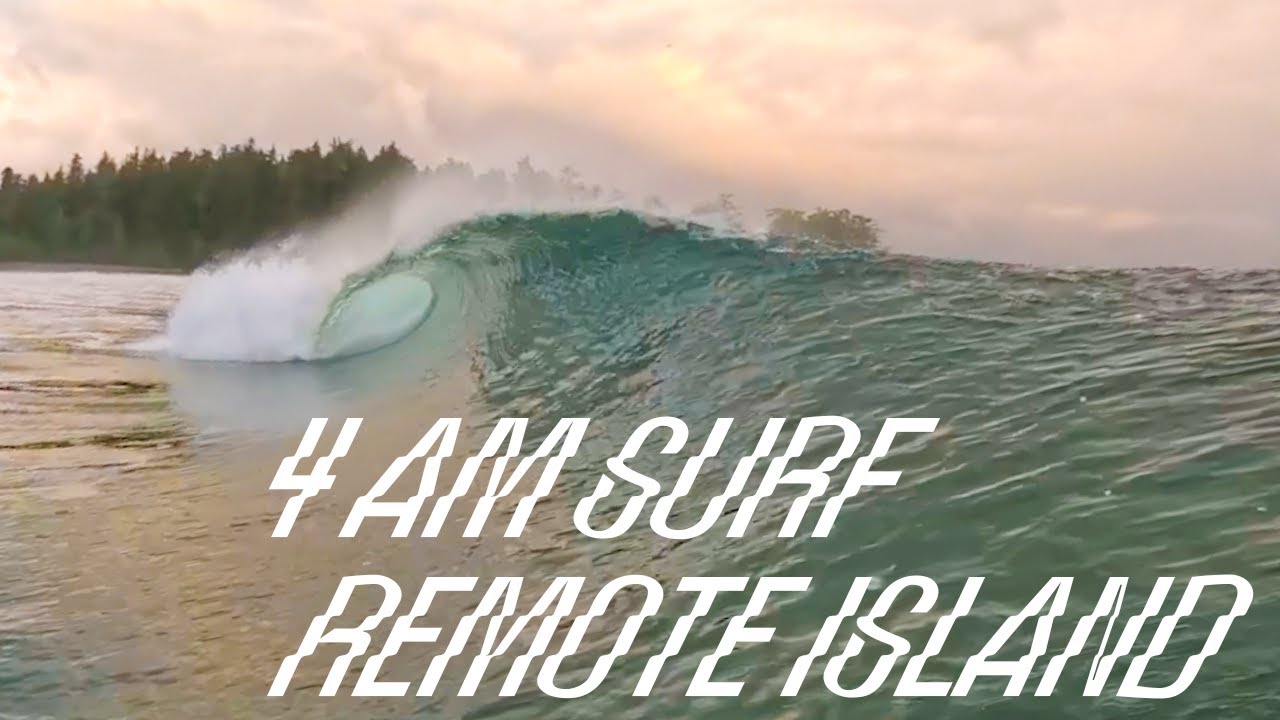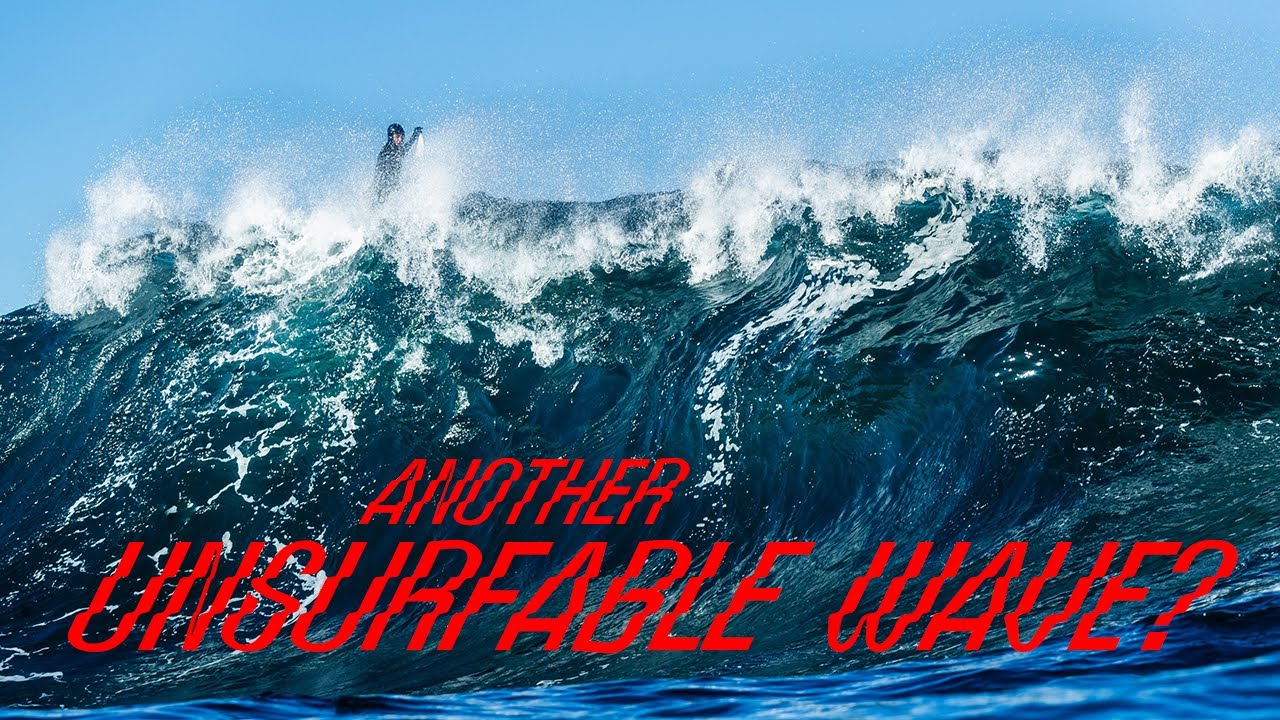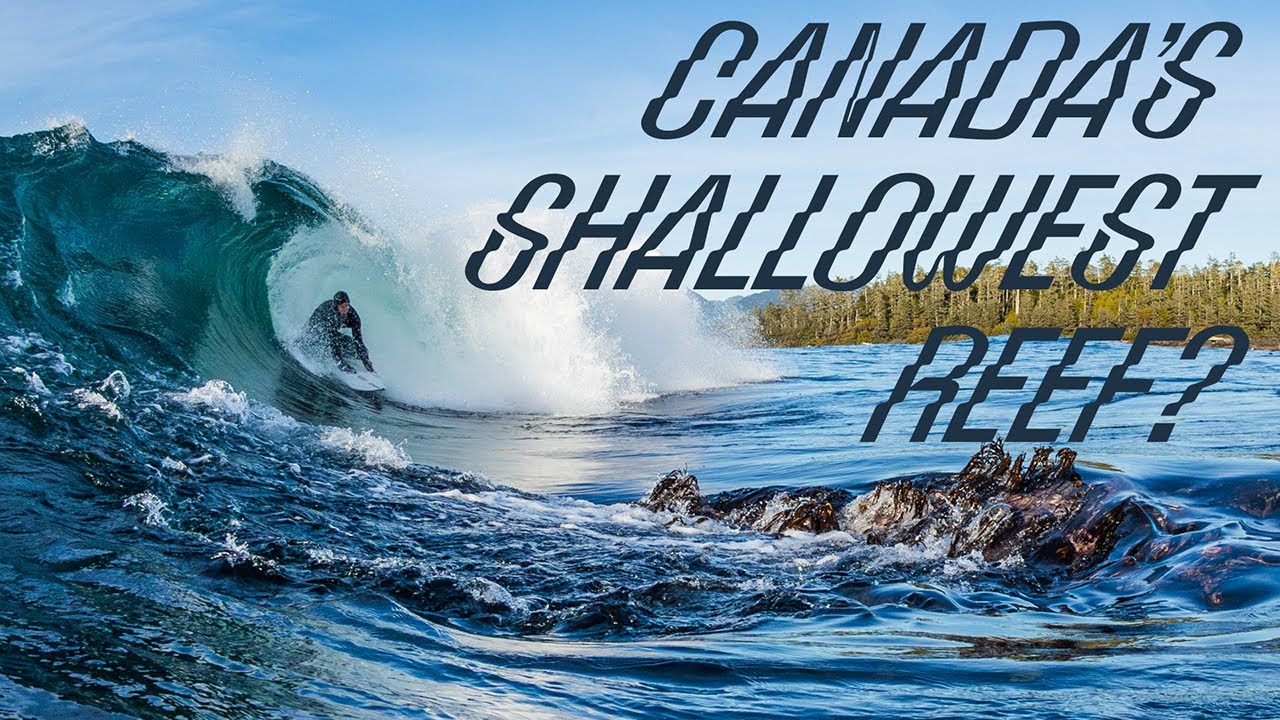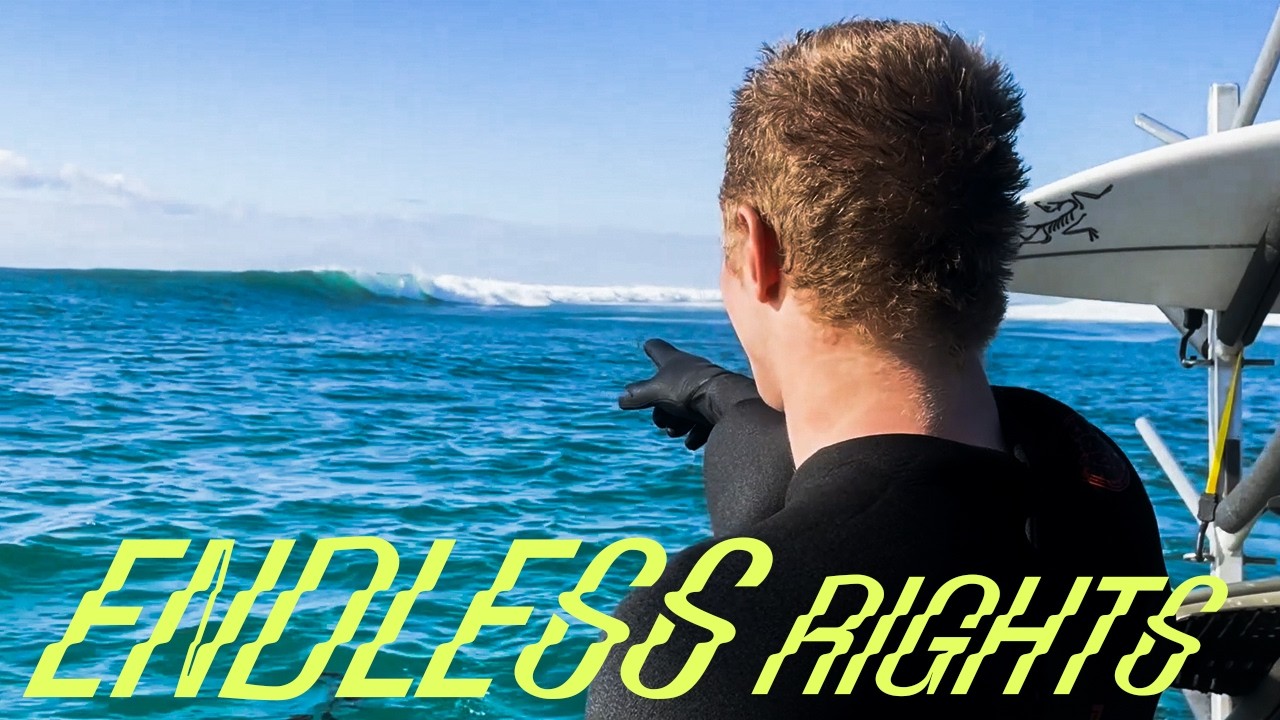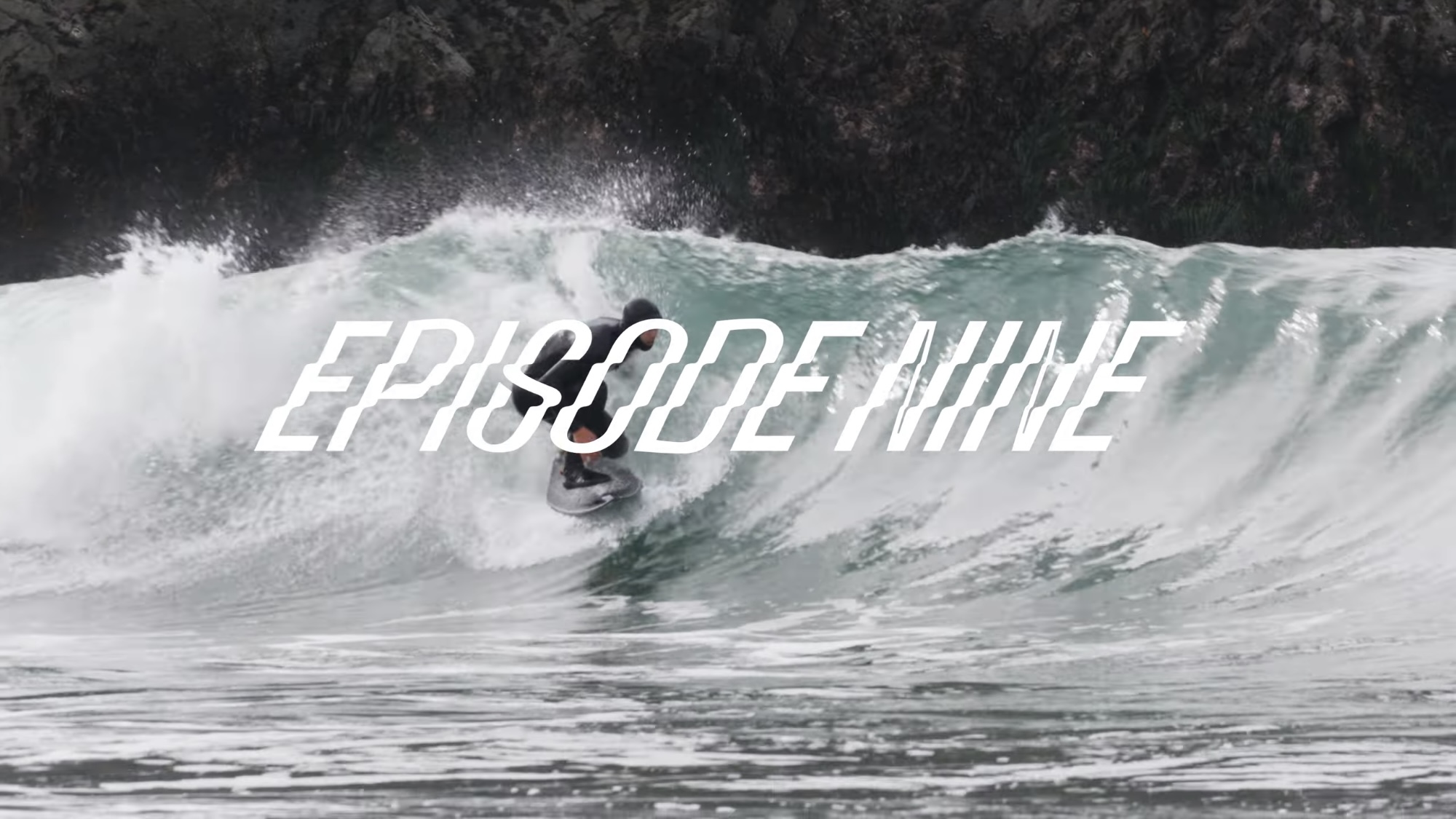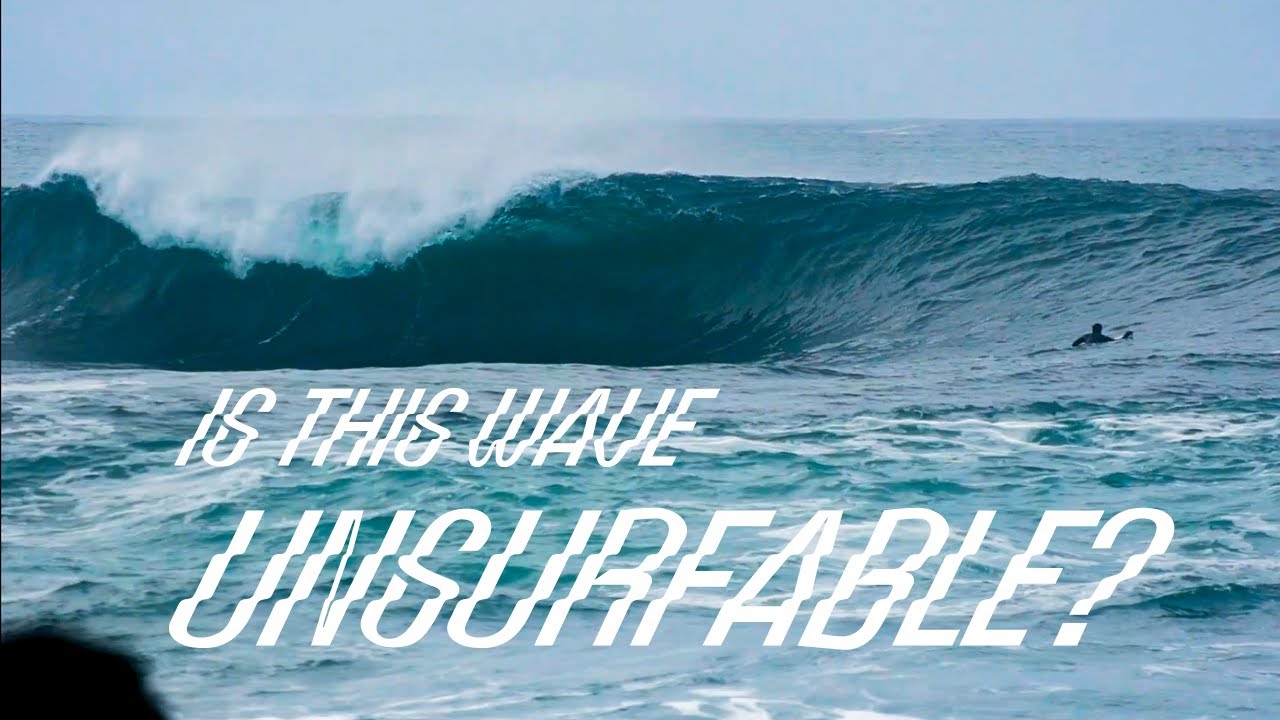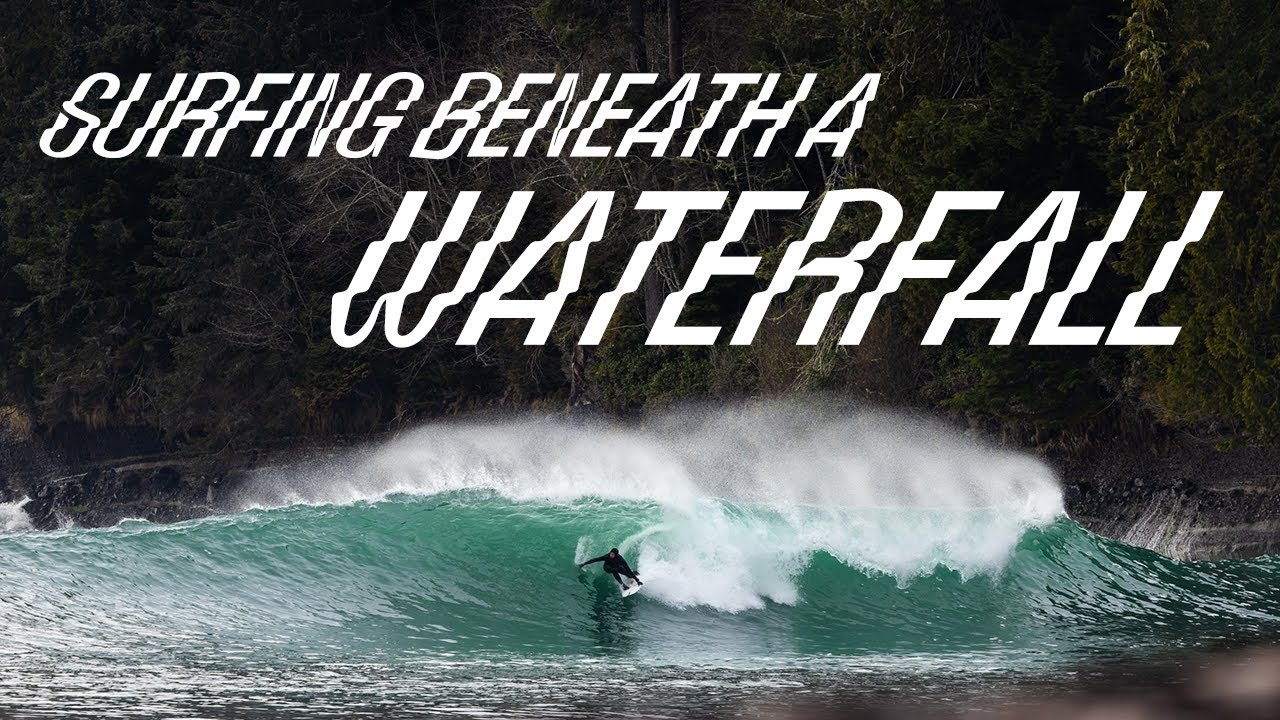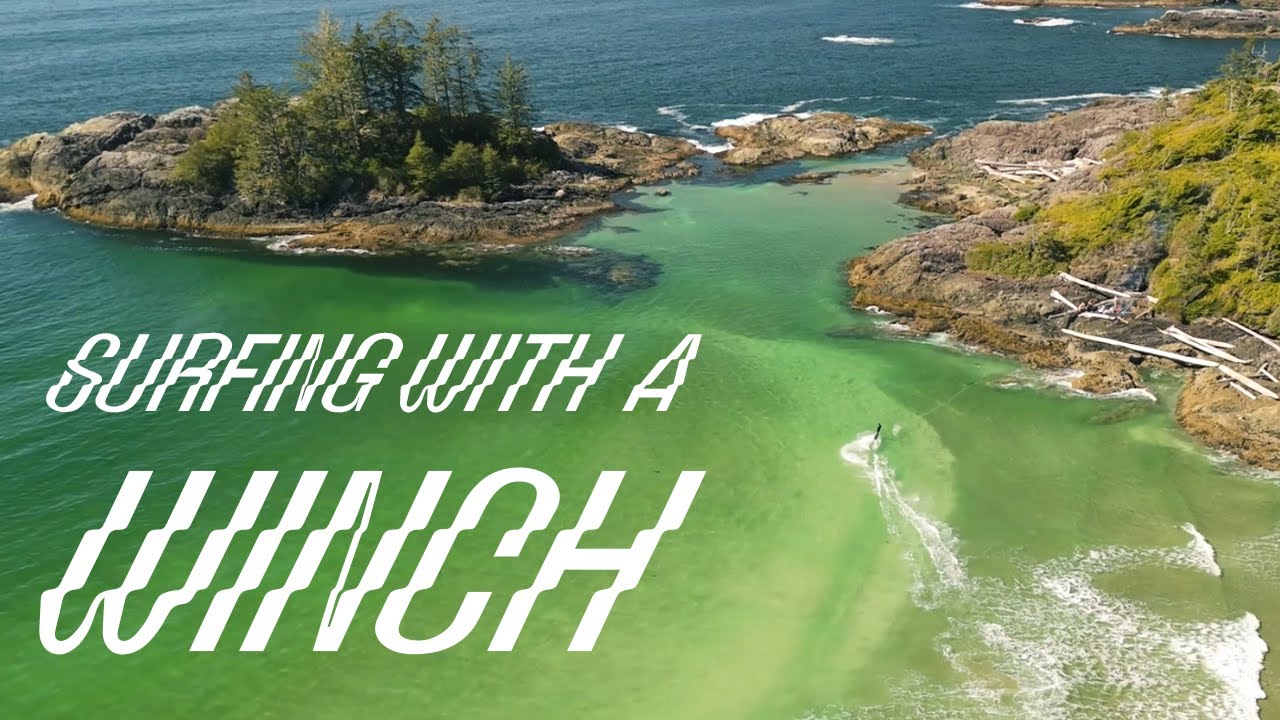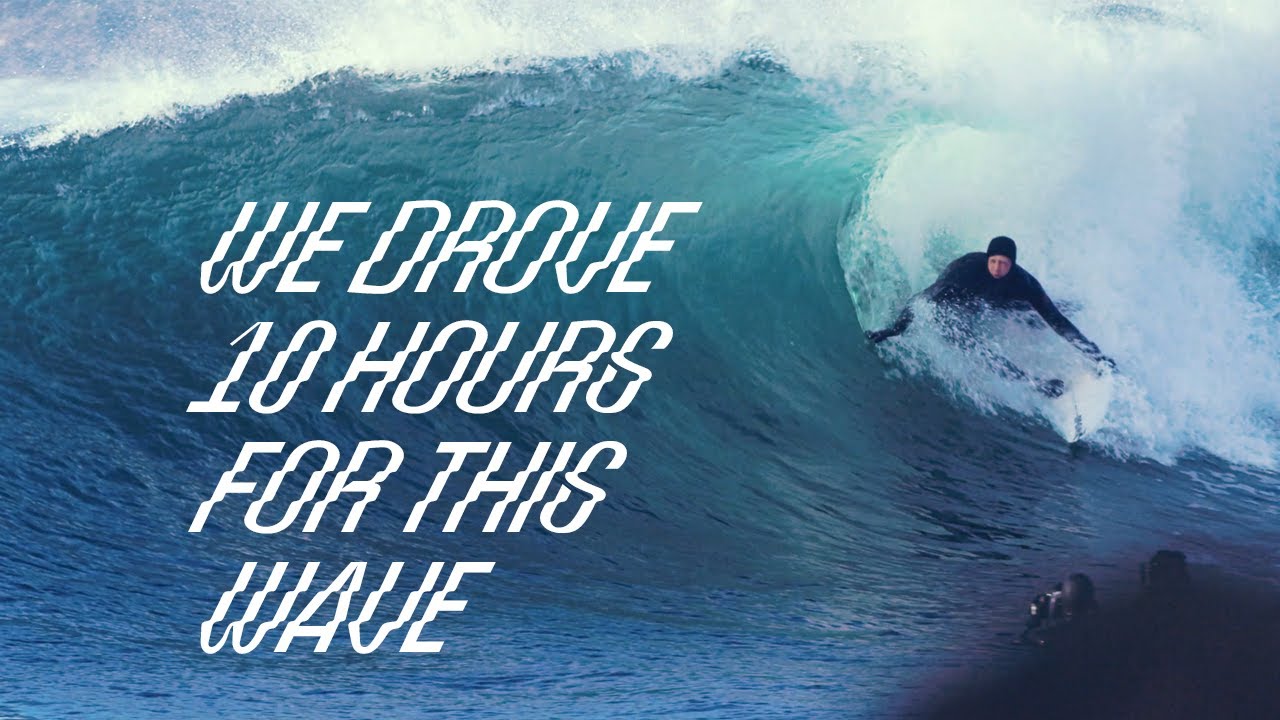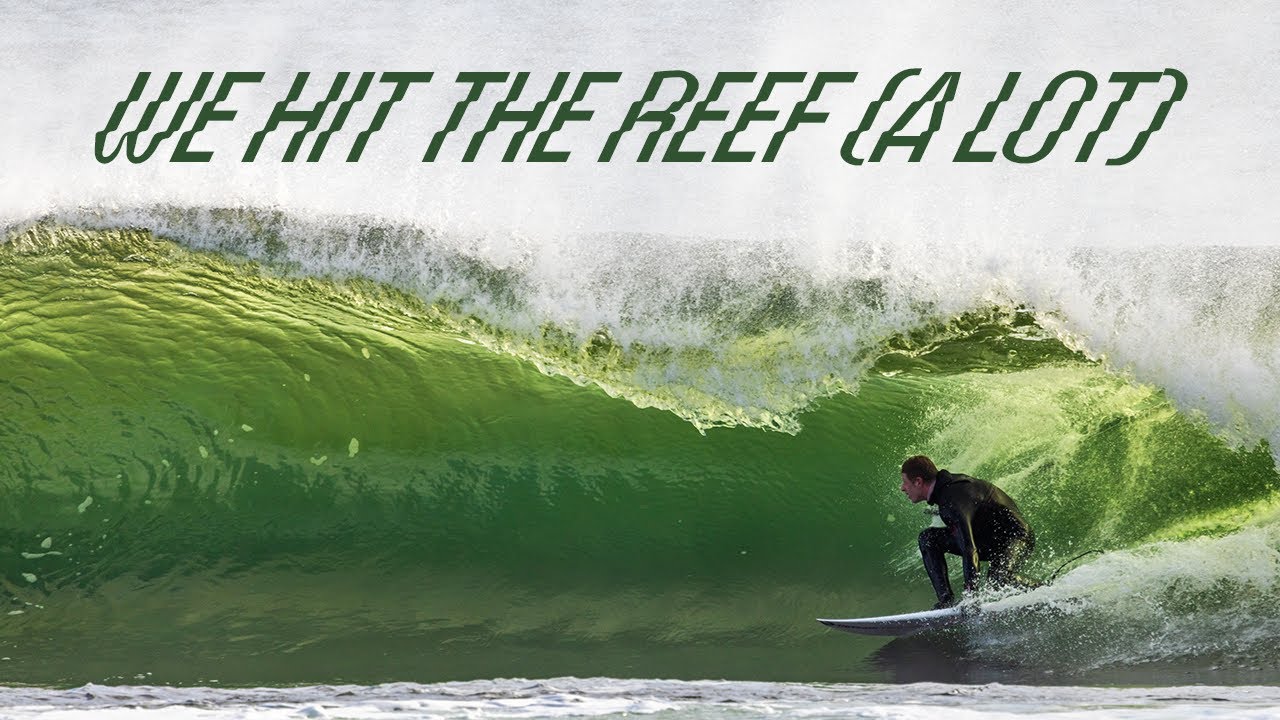
Reed Platenius surf video titles
by Reed Platenius
“We drove 10 hours for this wave“ surf video thumbnail from Reed Platenius using Velzyland typeface for the titles
This incredible series of surf videos from Reed Platenius expertly uses Velzyland for its video titles. The use of large, eye-catching typography harmonizes nicely with the awe-inspiring surfing on gorgeous waves in beautiful, remote locations. I named Velzyland after my favorite place to surf on the North Shore of Oʻahu, Hawaiʻi, so it’s wonderful to see fellow surfers put the typeface to such good use.
“Another unsurfable wave?“ surf video thumbnail from Reed Platenius using Velzyland typeface for the titles
“We hit the reef (a lot)” surf video thumbnail from Reed Platenius using Velzyland typeface for the titles
“Canada’s Shallowest Reef?” surf video thumbnail from Reed Platenius using Velzyland typeface for the titles
“Surfing with a winch” surf video thumbnail from Reed Platenius using Velzyland typeface for the titles
“Surfing beneath a waterfall” surf video thumbnail from Reed Platenius using Velzyland typeface for the titles
“Is this wave unsurfable?” surf video thumbnail from Reed Platenius using Velzyland typeface for the titles
“Episode Nine” surf video thumbnail from Reed Platenius using Velzyland typeface for the titles
“Endless Rights” surf video thumbnail from Reed Platenius using Velzyland typeface for the titles